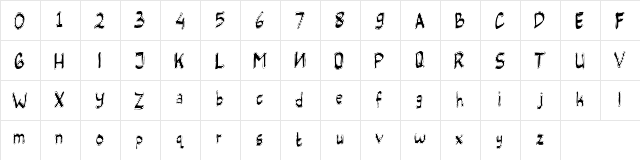
Reborn Regular
Design Context for Reborn Typeface
Reborn is a composed and adaptable typeface that performs quietly and consistently across a wide range of design contexts.
Pro Tip: Use Reborn in both headline and body roles to test its range before committing to a single application.